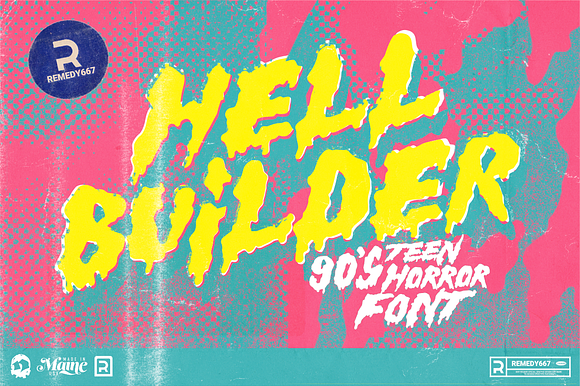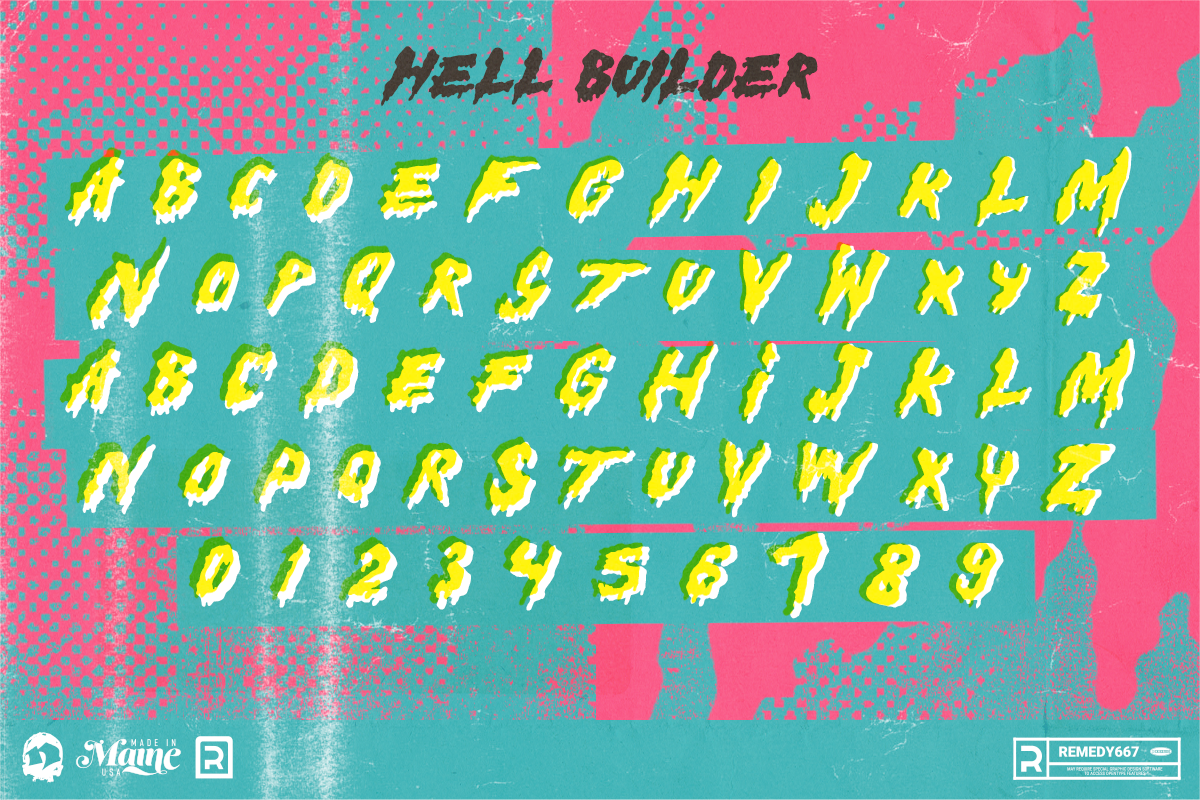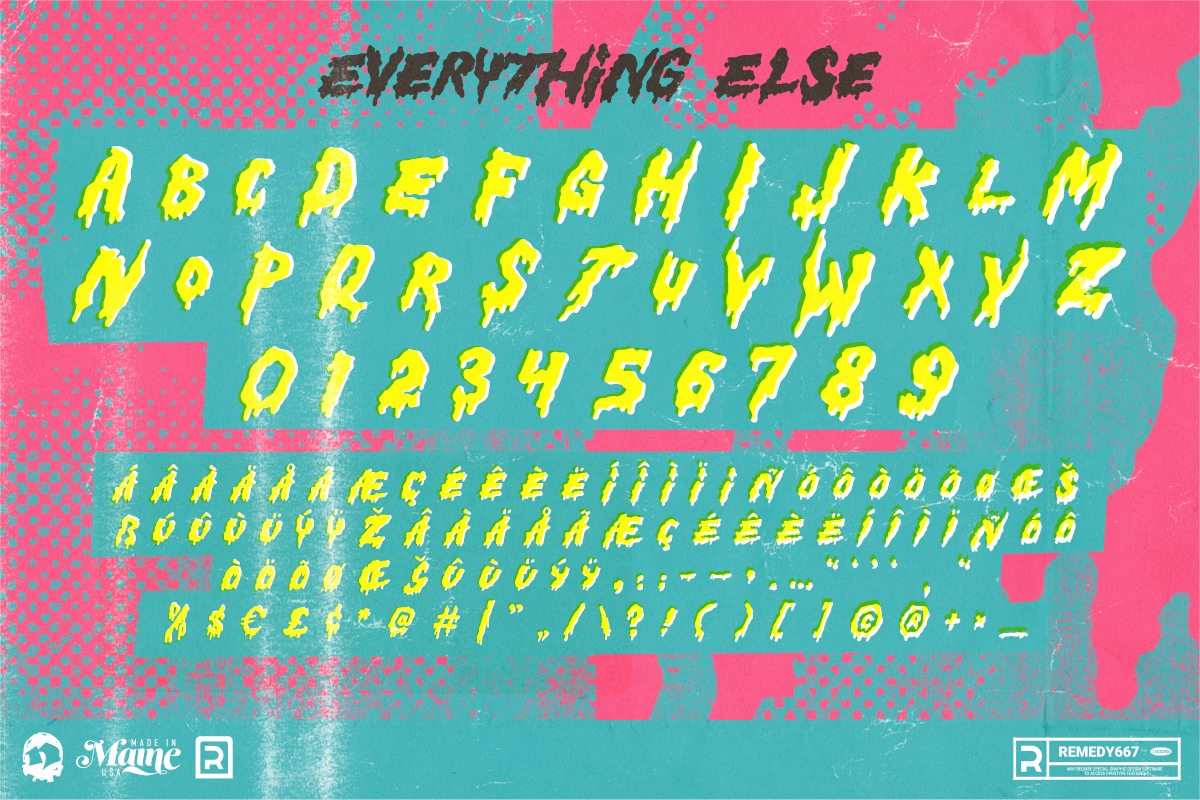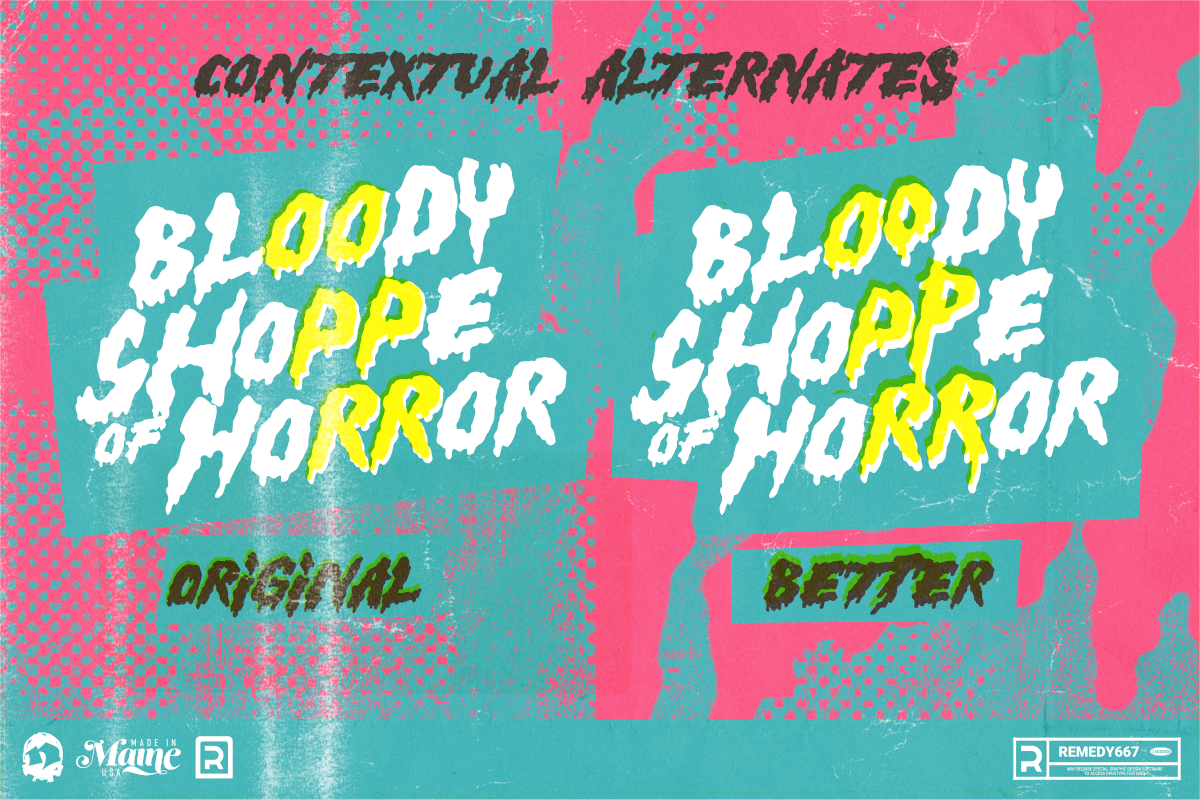
Hell Builder - 90's Teen Horror Font
Hell Builder. Ripped from the covers of 90’s Teen Horror Fiction, it’s bound to give you goosebumps… if not something much more terrifying. Hell Builder is hand made, in Maine, and perfect for t-shirts, posters, book covers, movies... any project where you want to kill it. Check out Hell Builder, today. Available where Remedy667 fonts are sold.
31 Days of Horror Fonts
In October of 2019, I made up a bunch of fake movie titles and made logos for them. I called the project 31 Days of Horror Fonts, and posted one each day on Instagram. People who follow my account voted for their favorites, by liking and commenting… I then proceeded to make the most popular logos into complete typefaces.